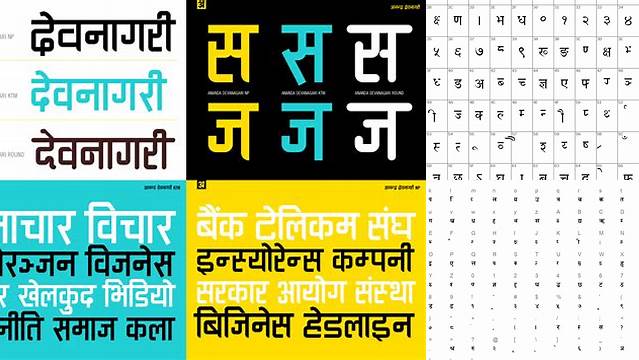
Hey guys! Are you looking for a way to beautifully blend Devanagari script with English in your designs? Well, you're in luck! This article is your ultimate guide to Devanagari English font free download TTF options. We'll dive deep into where you can find these amazing fonts, how to install them, and even some cool ways you can use them. Whether you're a seasoned designer, a student, or just someone who loves to experiment with typography, this is the perfect place to kickstart your journey. We'll cover everything from the basics of TTF files to the most popular font choices and how to get them onto your computer, free of charge. So, get ready to explore a world where Hindi and English fonts collide in the most elegant and creative ways possible. Let's get started! This is all about finding those perfect Devanagari English font free download TTF resources.
Exploring the World of Devanagari and English Fonts
Alright, let's get down to the nitty-gritty. What exactly are we talking about when we say Devanagari English font free download TTF? Basically, it's a combination of two incredible writing systems! Devanagari is the script used for Hindi, Sanskrit, Marathi, and other languages, known for its beautiful, flowing curves. English, of course, is our familiar alphabet. When these two are merged into a single font, you get the best of both worlds! You can seamlessly switch between English text and Hindi text within the same document, which is super useful for bilingual projects, creating multilingual documents or just adding a unique flair to your creative work. TTF stands for TrueType Font, a file format that's widely compatible with all major operating systems and applications. This means you can download and use these fonts on your Windows PC, your Mac, and even on your mobile devices. The best part? You can find many great Devanagari English font free download TTF options that are available completely free of charge. This gives you the flexibility to explore, experiment and create without having to worry about any licensing fees. So, whether you're designing invitations, creating presentations, or working on a personal blog, these fonts can bring a special touch that blends cultures and styles. We are talking about the Devanagari English font free download TTF that is available.
Best Practices for Using Devanagari English Fonts
Alright, you've got your Devanagari English font free download TTF fonts installed. Now, let's talk about how to use them effectively. The first thing to keep in mind is readability. Choose fonts that are clear and legible, especially for body text. Avoid overly ornate fonts that might be difficult to read at smaller sizes. Consider the context of your design. If you're creating a formal document, a classic, clean font might be best. For something more casual, you can experiment with more playful styles. When combining Devanagari and English, try to choose fonts that complement each other. Look for fonts that share similar design characteristics, such as the same basic weight or style. This helps create a cohesive look. Pay attention to the spacing between letters and words. Adjust the kerning and tracking to ensure the text is easy to read. Also, be aware of how the font displays diacritics, the little marks above or below letters in Devanagari. Make sure these are rendered correctly. With the right choices, your Devanagari English font free download TTF fonts will shine.
Tips for Readability and Design Cohesion
Let's dive into some key tips for making the most of your Devanagari English font free download TTF fonts. First and foremost, focus on readability. Choose fonts that are easy to read, even at smaller sizes. Avoid overly stylized fonts for body text; they can be difficult to read. Consider the overall design of your project. If you're creating a formal document, a clean, classic font is usually a safe bet. For something more creative, you can experiment with unique styles. When combining Devanagari and English, think about how the fonts work together. Try to find fonts that complement each other. For example, if you have a Devanagari font that's bold and rounded, you could choose an English font that has a similar weight and style. This will create a cohesive look and feel. Pay attention to the spacing between characters and words. Adjust the kerning and tracking to ensure the text is easy to read. Poorly spaced text can be difficult to read and can make your design look unprofessional. Also, always test your design on different devices and screen sizes to make sure the text looks good everywhere. By keeping these tips in mind, you can use the Devanagari English font free download TTF fonts to create beautiful and effective designs.
Even with the best Devanagari English font free download TTF resources, you might run into a few snags along the way. Let's troubleshoot some common issues. One problem can be fonts not appearing in your application's font menu. If this happens, try restarting the application. Sometimes, the application needs to be refreshed to recognize the new font. If that doesn't work, try restarting your computer. Another common problem is missing characters. If you're typing in Devanagari and some characters are missing or are replaced by boxes, it's likely that the font doesn't fully support the Devanagari script. Make sure you choose a font that is specifically designed to support the Devanagari alphabet. You can also check the font's documentation or website for information about character support. Also, make sure you have the correct keyboard layout selected. You might need to enable a Devanagari keyboard layout in your operating system to type the characters. Finally, always check the font's license before you use it for a commercial project. Some free fonts are only for personal use. Understanding the Devanagari English font free download TTF issues can prevent future frustration.
Resources for Further Learning
Ready to dive deeper into the world of fonts and design? Here are some helpful resources to expand your knowledge of Devanagari English font free download TTF and beyond. Online courses and tutorials are a great way to learn about typography, design principles, and font usage. Websites like Skillshare, Udemy, and Coursera offer a wide range of courses for all skill levels. Books on typography can provide a comprehensive understanding of font design, history, and usage. Check out titles like